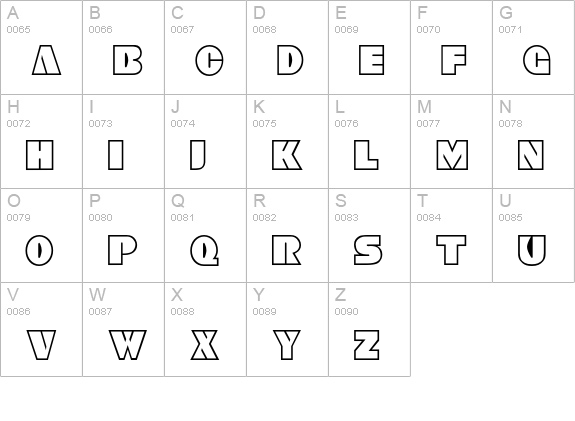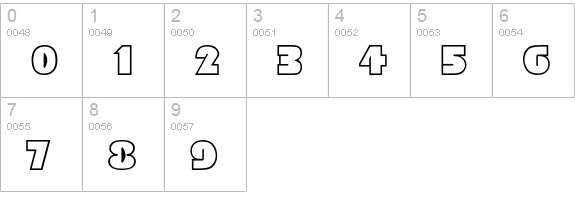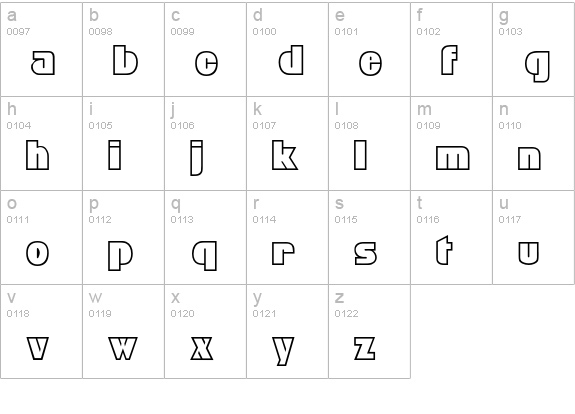
The Domino font is a modern and stylish typeface that exudes sophistication and elegance. Its clean lines and unique design make it perfect for a wide range of projects, from branding to editorial design. The font features a perfect balance between classic and contemporary, making it versatile and suitable for various applications. The best part about the Domino font is that it is completely free to download at FontsMarket.com. This means you can easily access this beautiful typeface and use it in your projects without any cost. Whether you are a designer, a student, or a business owner, the Domino font offers a high-quality and professional look that will elevate your work to the next level. With its sleek and modern aesthetic, the Domino font is sure to make a statement and leave a lasting impression on your audience. So why wait? Download the Domino font today and start creating stunning designs with this amazing typeface.